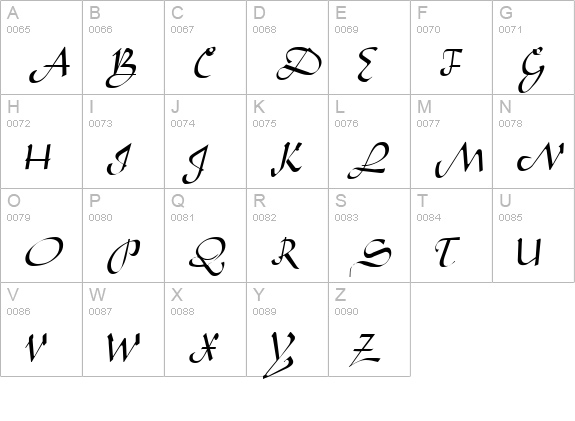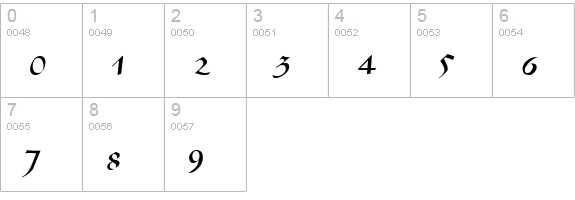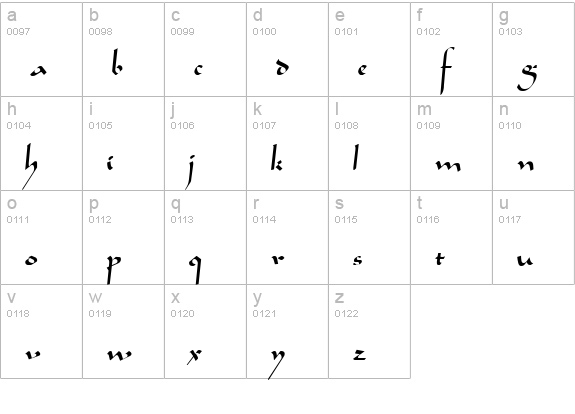
Shamar Font Details
Shamar font is a versatile and stylish typeface that exudes elegance and sophistication. With its sleek lines and modern design, Shamar is perfect for a wide range of projects, from branding to editorial design. This beautiful font is free to download at FontsMarket.com, making it accessible to designers and creatives looking to add a touch of class to their work. Whether you're creating a logo, website, or print materials, Shamar font is sure to make a statement with its unique charm and timeless appeal. Download Shamar font today and elevate your designs with this stunning typeface.